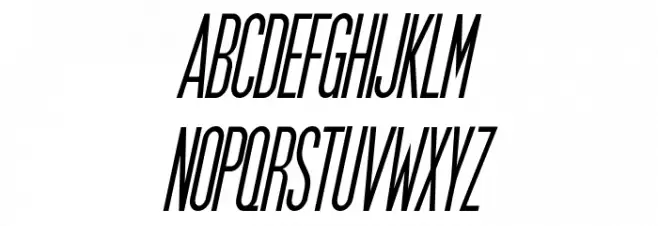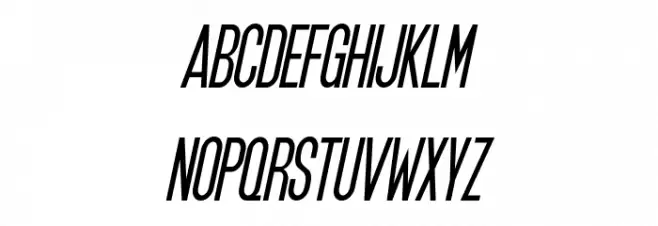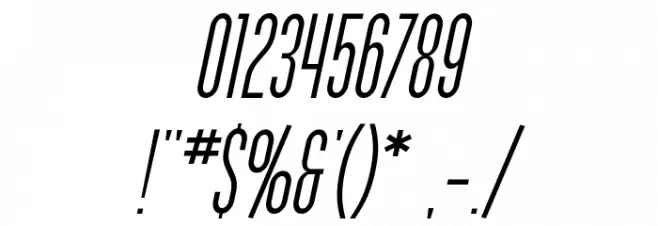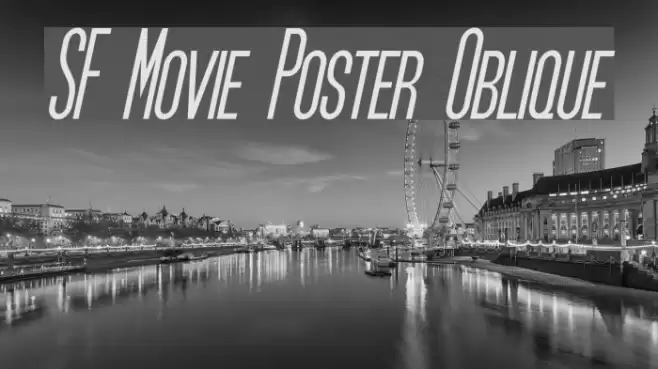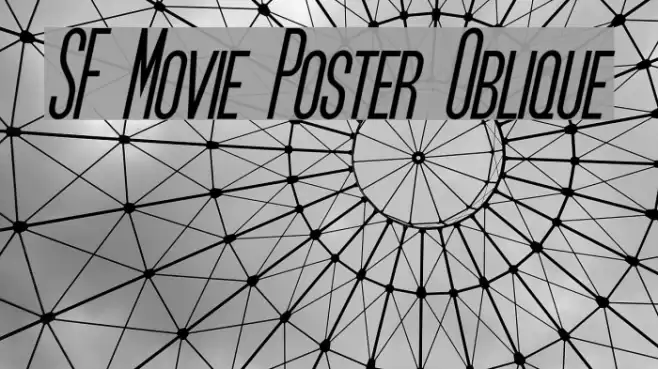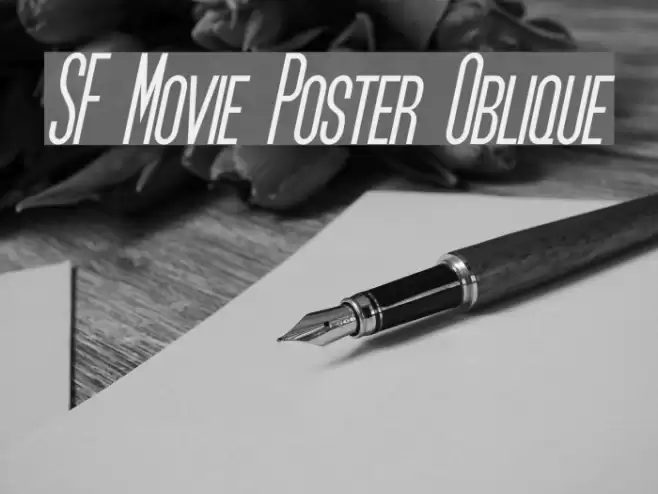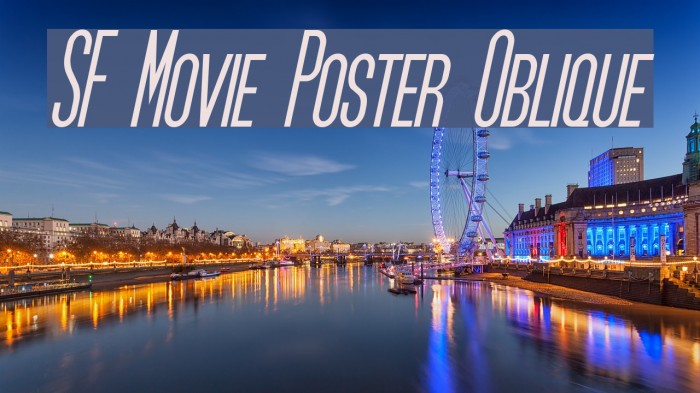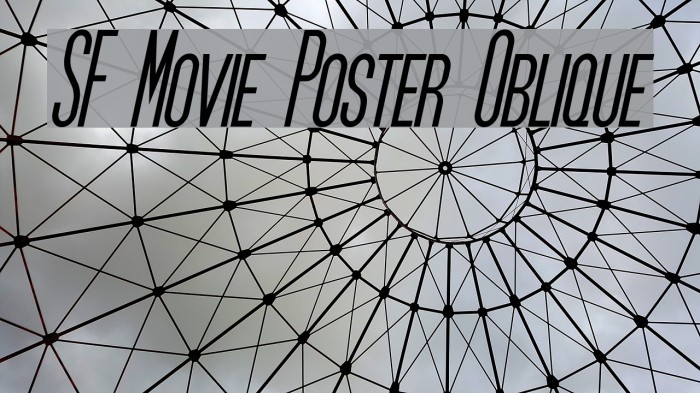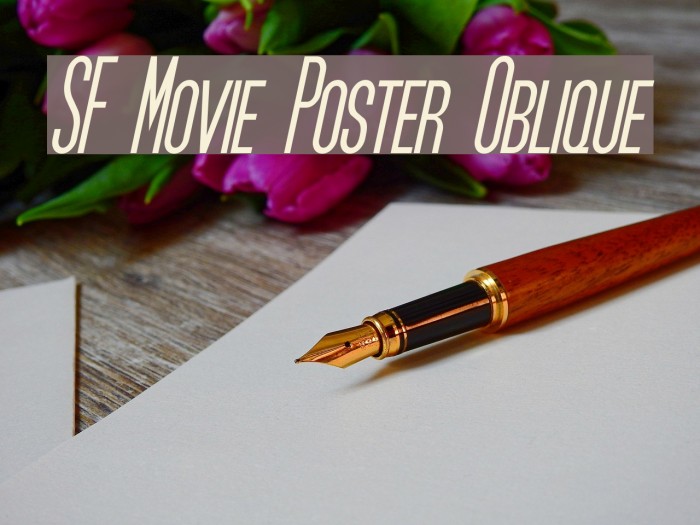
SF Movie Poster Oblique
This font features a dynamic and slanted design, characterized by its oblique orientation that adds a sense of motion and energy. The letters are tall and narrow, with a consistent stroke width that gives it a sleek and modern appearance. The uppercase and lowercase letters maintain a uniform style, enhancing readability while still providing a distinctive look. Numbers and special characters are designed to match the overall aesthetic, ensuring a cohesive appearance across all text elements. The font's clean lines and sharp angles make it suitable for a variety of design applications where a bold and contemporary style is desired.
A dynamic, oblique font with sleek, narrow letters and a modern aesthetic.
- Proposed Projects: Ideal for movie posters, advertising campaigns, branding materials, and any project requiring a bold, modern look.
- Width: Condensed
- Use Case: Headlines, Logos, Posters